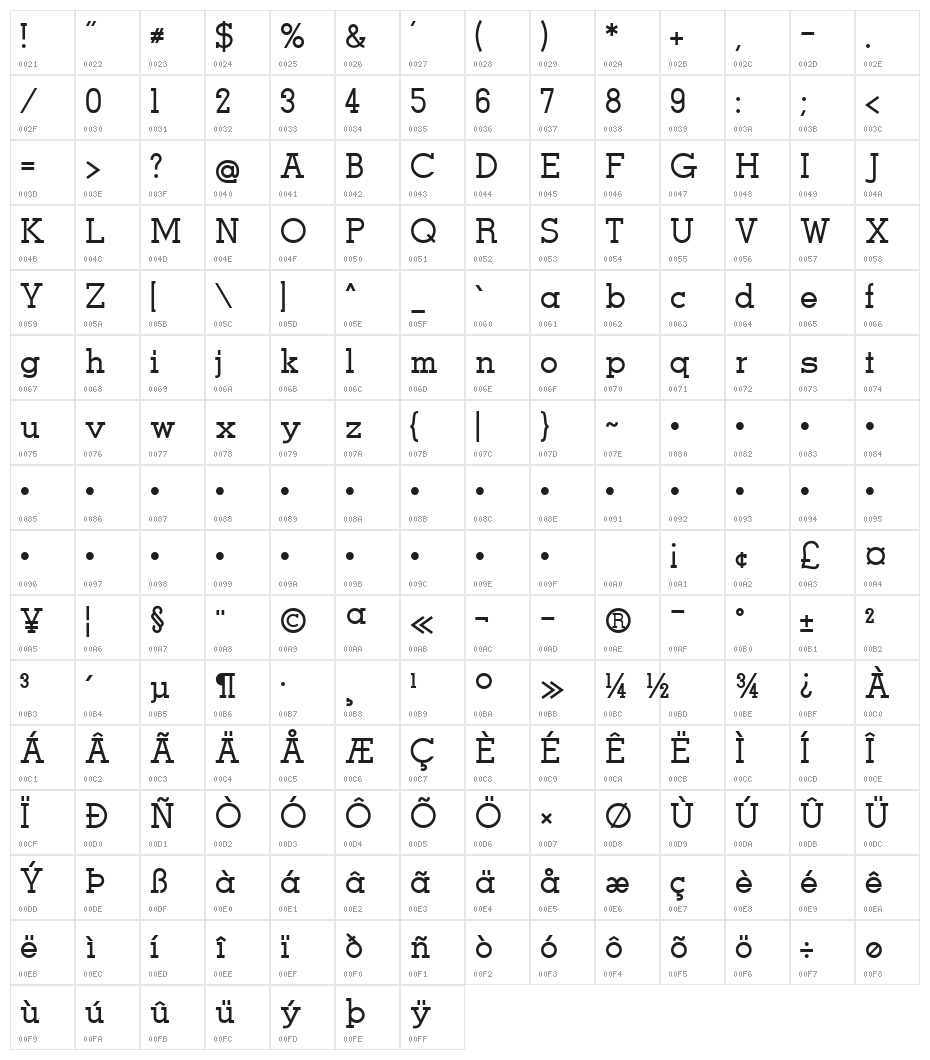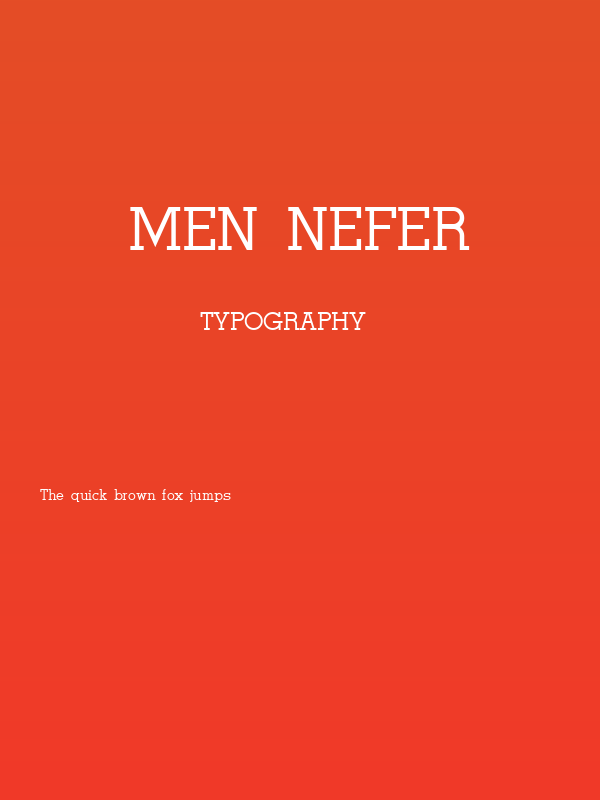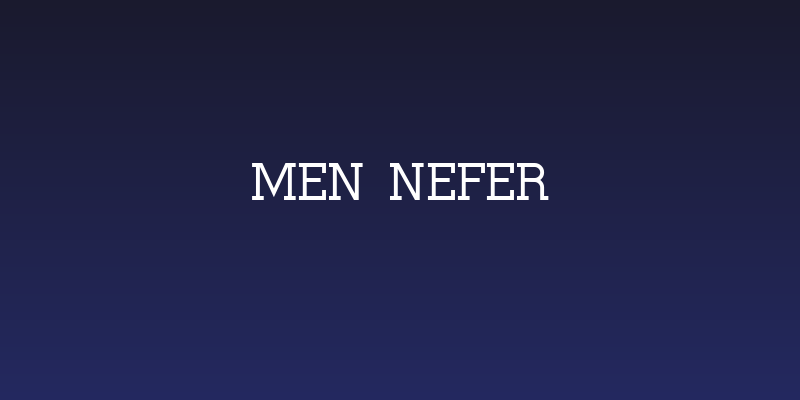
Men Nefer Font
Men Nefer Description
This font features a classic serif style with a modern twist. The characters are well-defined with a consistent stroke width, giving it a clean and professional appearance. The uppercase letters are bold and commanding, while the lowercase letters maintain a balanced and approachable look. The numerals are clear and easy to read, making them suitable for various applications. Special characters are included, adding versatility to the font. Overall, it combines traditional serif elements with a contemporary feel, making it suitable for both formal and casual contexts.